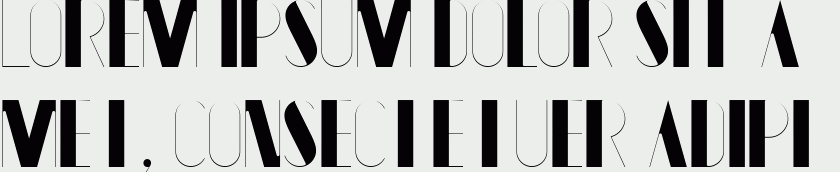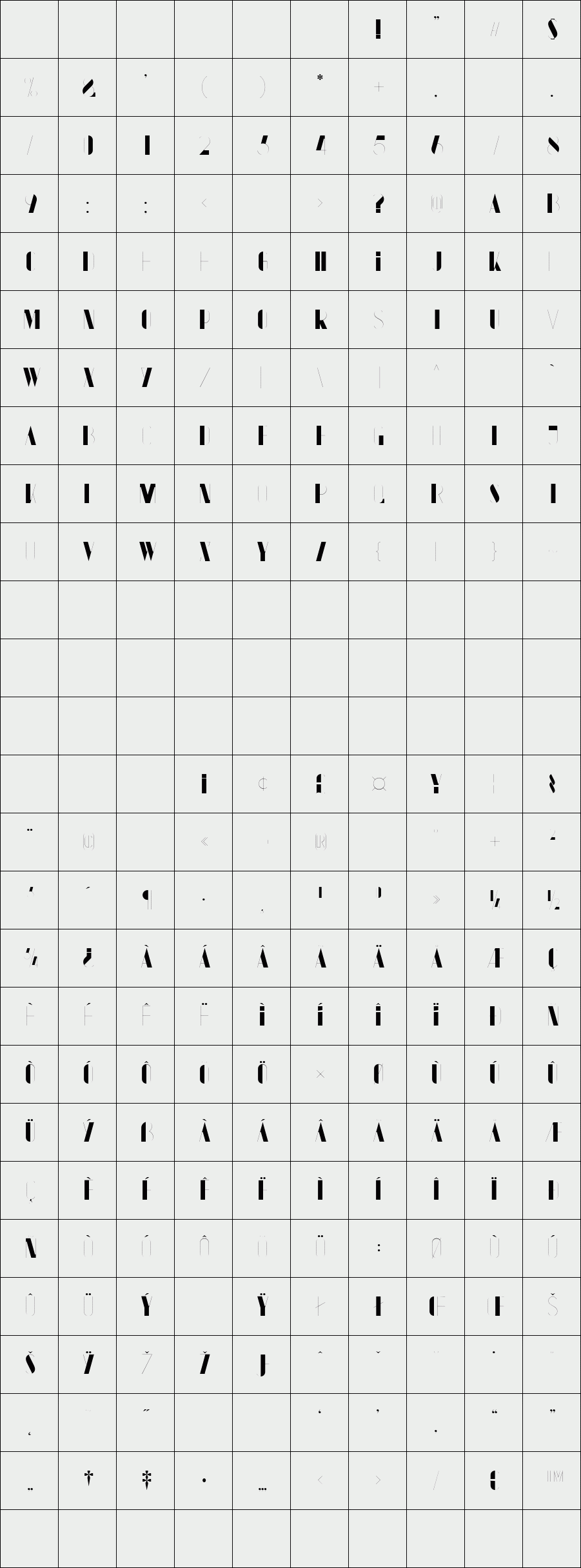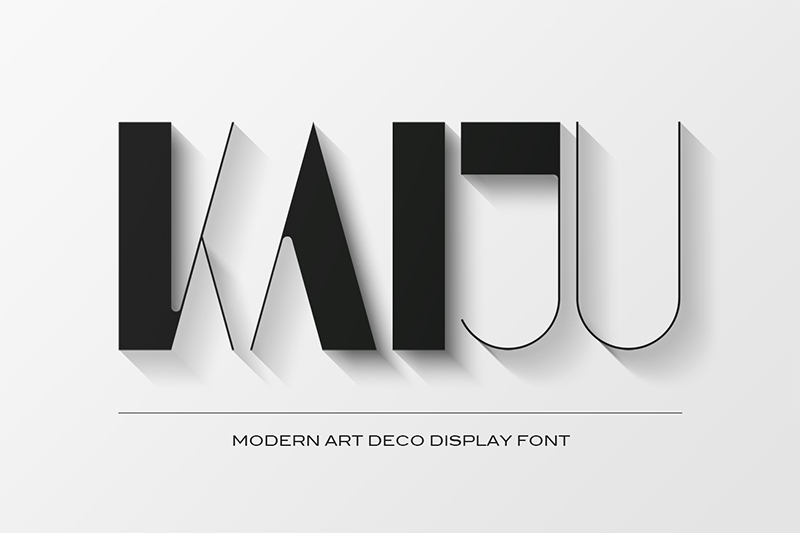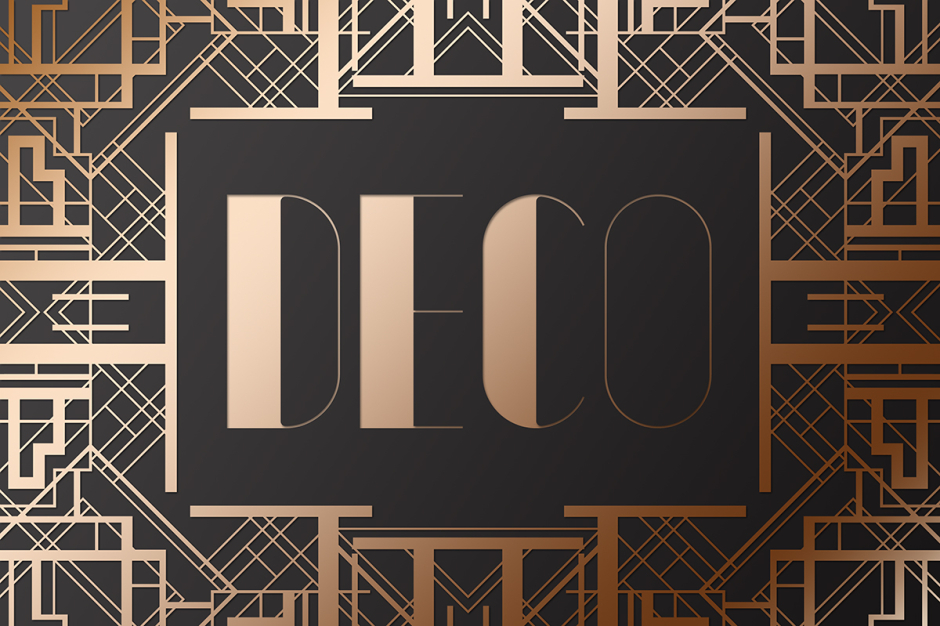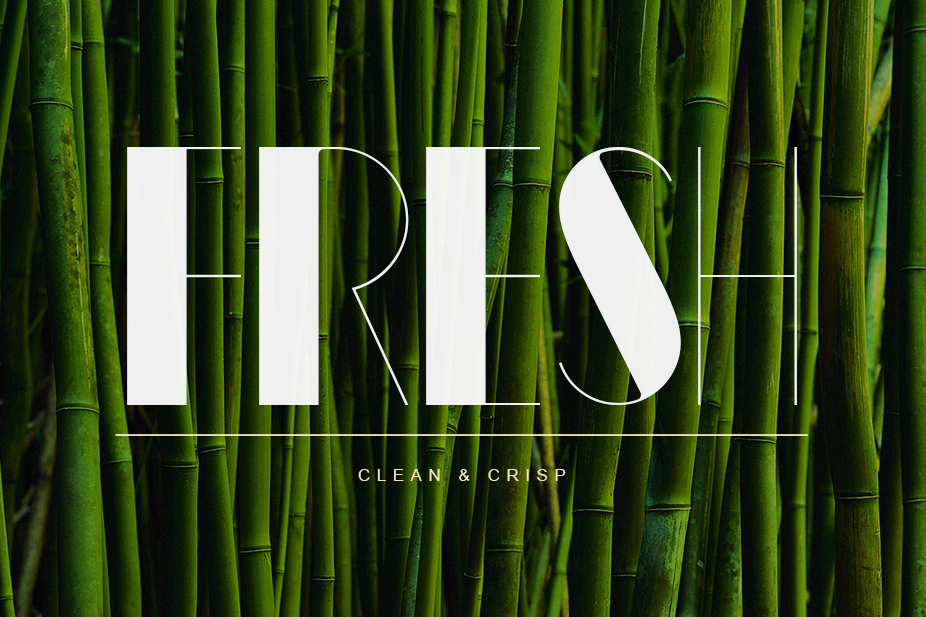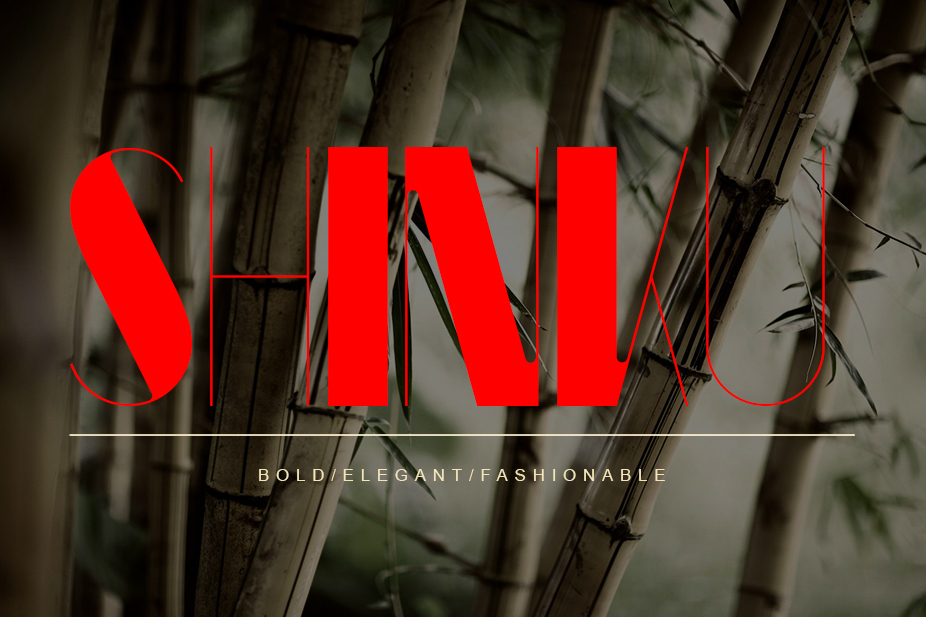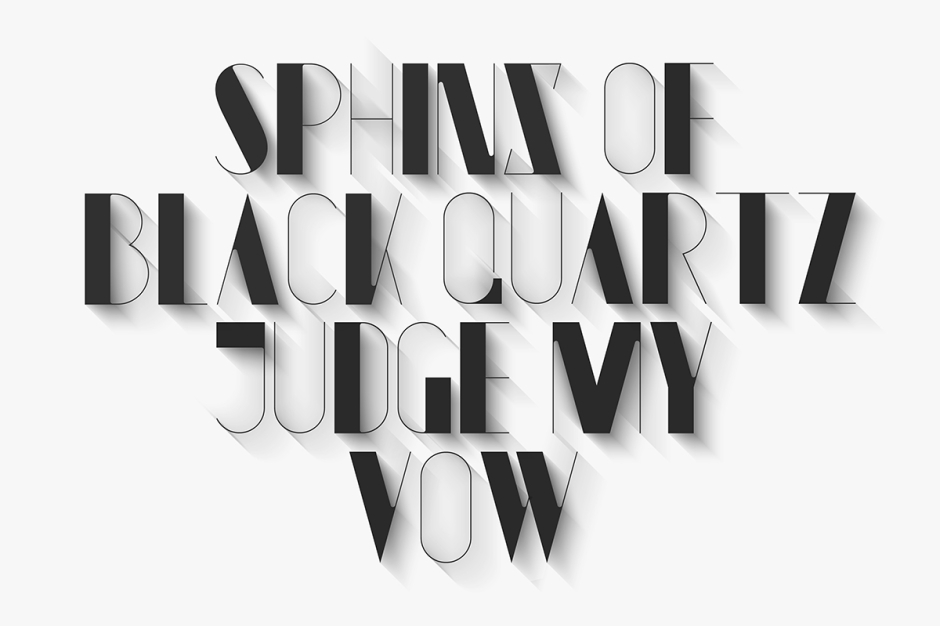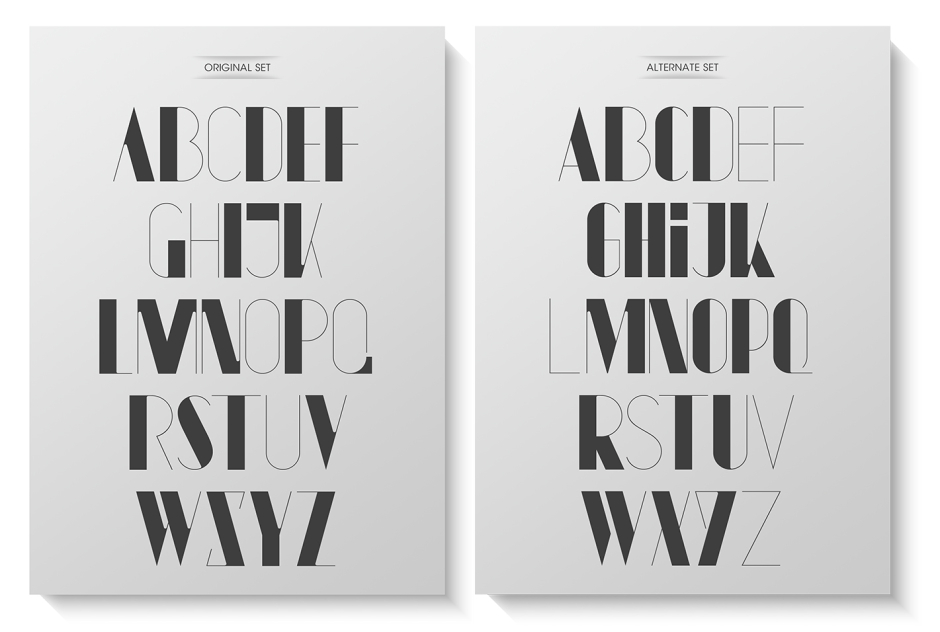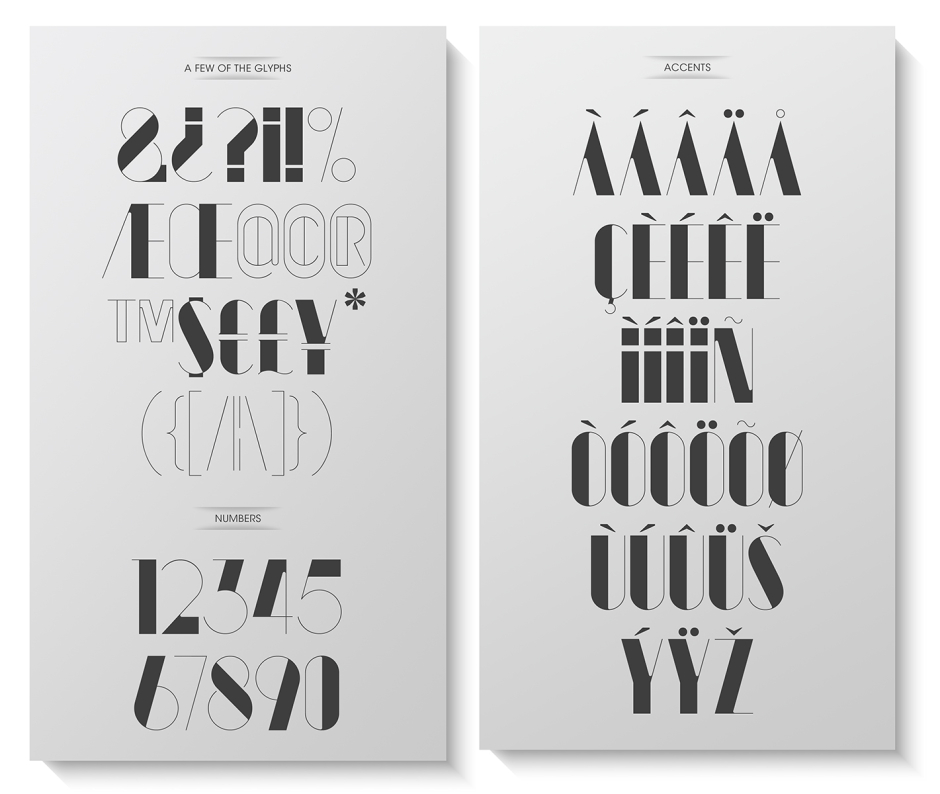
KAIJU II
KAIJU II is a typeface that focuses on the balance and distribution of weight. As a display font, it is entirely uppercase with alternates for each letter, allowing the user to mix and match where they see fit. Slender lines and easy legibility, this art deco typeface is great for many applications. (poster, editorial, flyer)